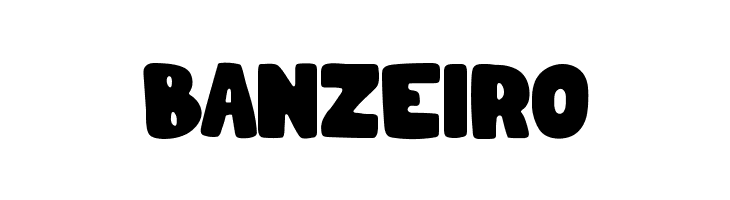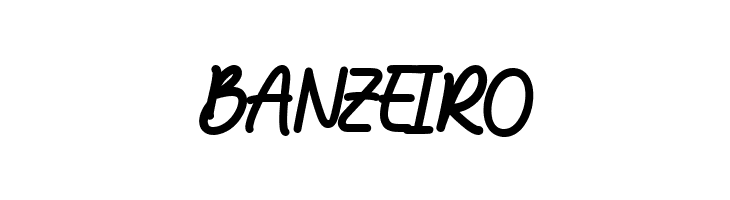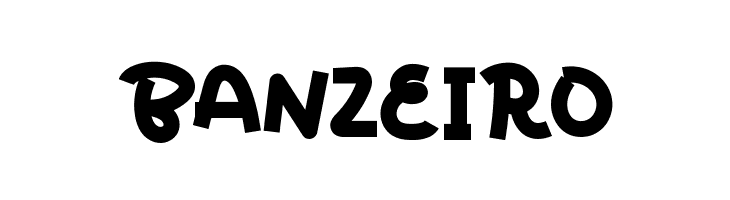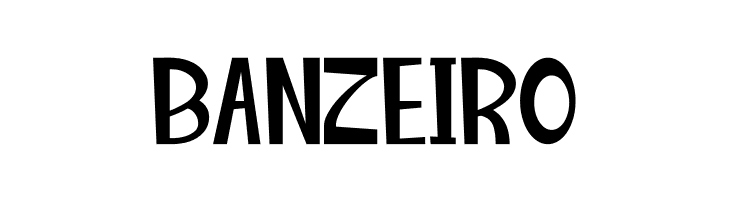
A bold, playful sans-serif with hand-drawn, cartoonish character.
A playful, casual handwritten font with smooth, rounded strokes.
A playful, handwritten script font with smooth, flowing lines.
A playful and energetic script font with bold, flowing letterforms.
A dynamic and elegant script font with fluid, cursive letterforms.
A modern, elegant script font with flowing, sophisticated characters.
A bold, modern font with high contrast and elongated characters.
A bold, modern sans-serif font with a strong and clean appearance.
A bold, playful font with rounded, chunky letters perfect for a youthful and fun vibe.
A playful and elegant script font with a handwritten style.
A modern, italic sans-serif font with sleek, elongated characters and consistent stroke thickness.
A playful, narrow font with a whimsical and modern style.
A playful, rounded font with a hand-drawn, friendly appearance.
A playful, rounded font with bold, smooth curves and a friendly style.
A playful, handwritten-style font with rounded, slightly irregular characters.
A playful handwritten font with lively, irregular strokes and a whimsical style.
Playful handwritten font with rounded edges.
A playful, handwritten font with a whimsical and friendly style.
A playful, rounded font with a hand-drawn, youthful appearance.
A playful, bold, and rounded font with a hand-drawn feel.
A playful, hand-drawn style font with thin, light strokes and rounded edges.
A playful, hand-drawn font with thin strokes and rounded edges.
A playful, bold font with rounded edges and a dynamic, friendly style.
A playful, handwritten font with a whimsical and childlike charm.
A playful and energetic handwritten font with fluid strokes.
A playful, handwritten script font with dynamic strokes and a lively appearance.
A bold, dripping font perfect for horror-themed designs.
A bold, playful, and hand-drawn font with a casual, informal style.
A playful, cursive script font with a friendly and relaxed style.
A fluid and elegant cursive font with a modern calligraphic style.
An elegant script font with flowing, cursive letters and calligraphic style.
A playful and elegant script font with fluid, continuous strokes.
A playful, handwritten font with smooth curves and a casual style.
A bold, playful font with a modern and slightly condensed style.